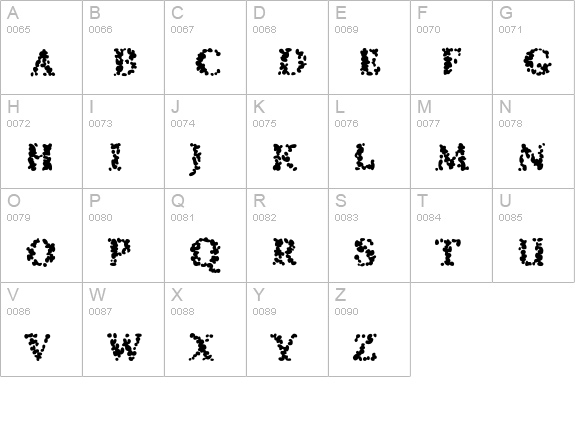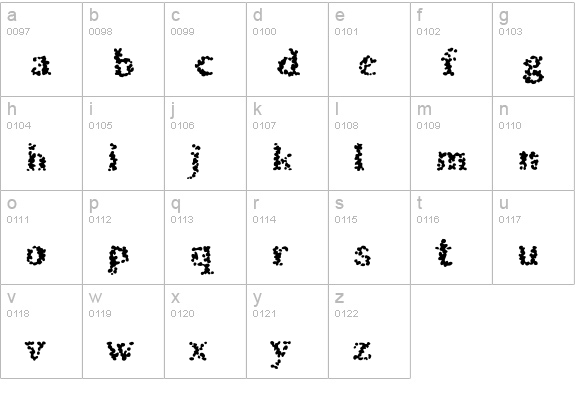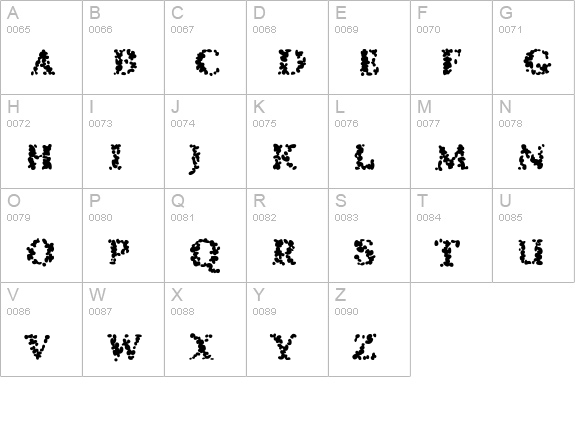
SibleyPotatoMashed Font Details
Introducing SibleyPotatoMashed, a bold and playful font that will add a touch of whimsy to your designs! This unique typeface combines the charm of hand-drawn lettering with a modern twist, resulting in a visually appealing and eye-catching font. SibleyPotatoMashed is perfect for a wide range of projects, from logo designs and branding materials to packaging, posters, and social media graphics. Its bold strokes and rounded edges give it a friendly and approachable feel, making it suitable for both professional and personal use. What sets SibleyPotatoMashed apart is not only its captivating aesthetics but also its availability as a free font. That's right, you can freely download this font at FontsMarket.com, ensuring that it's accessible to all creatives and designers. With SibleyPotatoMashed, you have complete creative freedom to experiment with different styles, sizes, and colors. Its versatility allows you to effortlessly convey your message, whether you're aiming for a fun and lighthearted tone or a more sophisticated and elegant look. The attention to detail in SibleyPotatoMashed is evident in its meticulously crafted characters. Each letter is carefully designed to maintain legibility while adding a touch of personality to your designs. The font also includes a wide range of special characters, punctuation marks, and symbols, ensuring that you have all the elements you need to bring your creative vision to life. Whether you're a seasoned designer or just starting out, SibleyPotatoMashed is a must-have font in your collection. So why wait? Go ahead and download this fantastic font for free at FontsMarket.com and let your creativity soar!